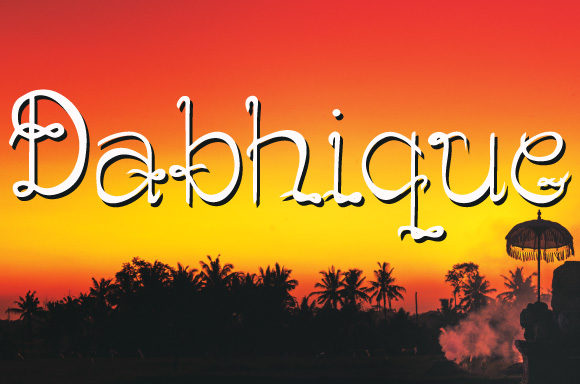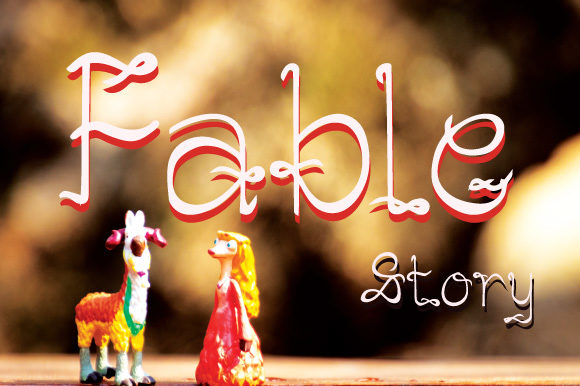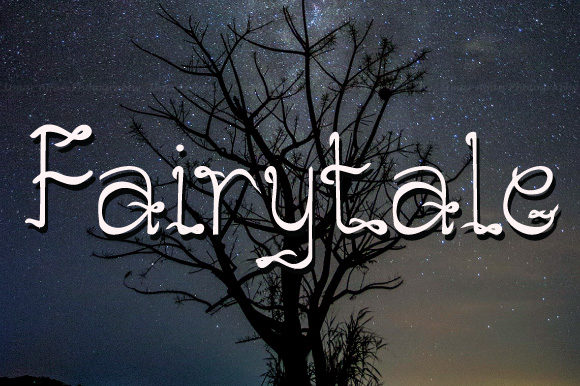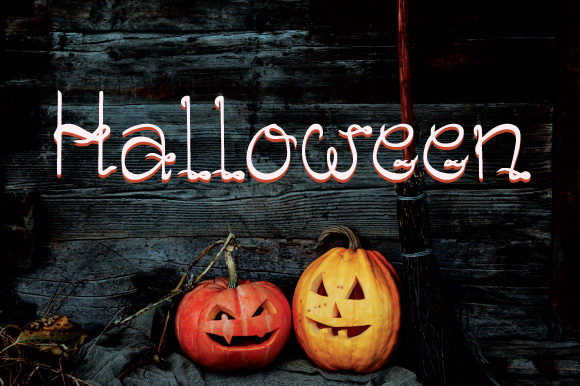
Orange Juice Font
About Orange Juice Font
Orange Juice is a thin and delicate handwritten font. It has a unique style that makes it perfect for your crafting projects, such as titles of book covers, magazines and so much more.